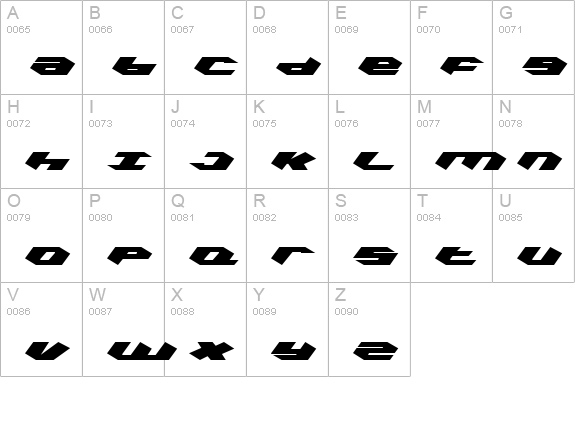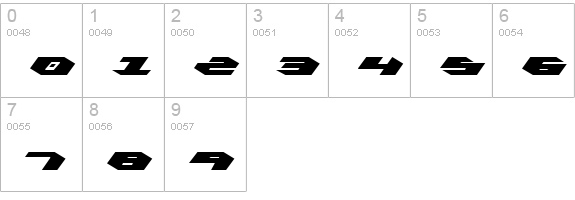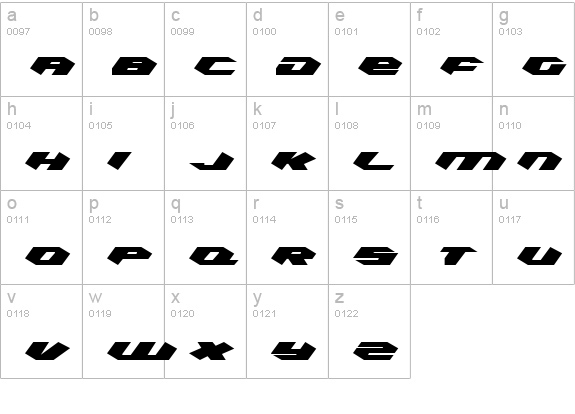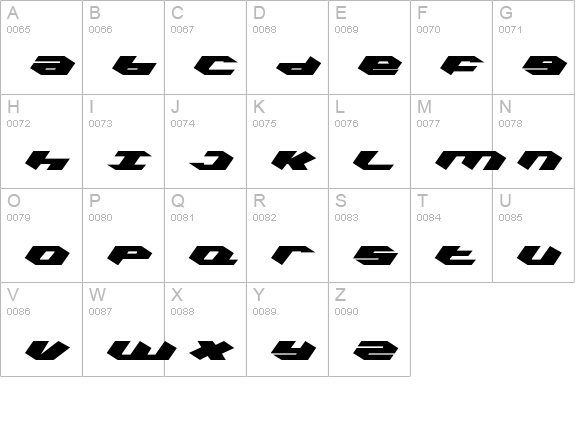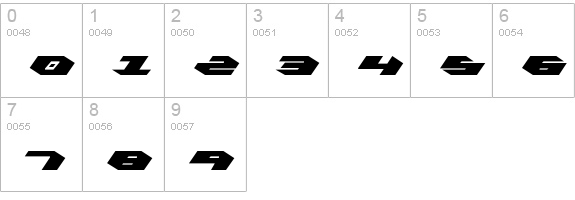
Kubrick font is a modern and sleek typeface that exudes sophistication and elegance. Its clean lines and sharp edges make it perfect for a wide range of design projects, from branding to editorial design. The versatility of Kubrick font allows it to be used in both bold headlines and subtle body text, making it a must-have in any designer's toolkit. What sets Kubrick font apart is not only its striking appearance but also the fact that it is available for free. Yes, you read that right - Kubrick font can be downloaded for free at FontsMarket.com. This means that you can enhance your projects with this stylish font without breaking the bank. Don't miss out on the opportunity to add Kubrick font to your collection today!